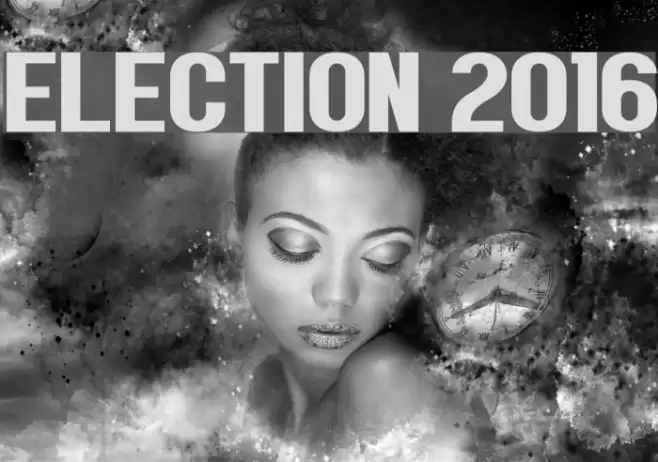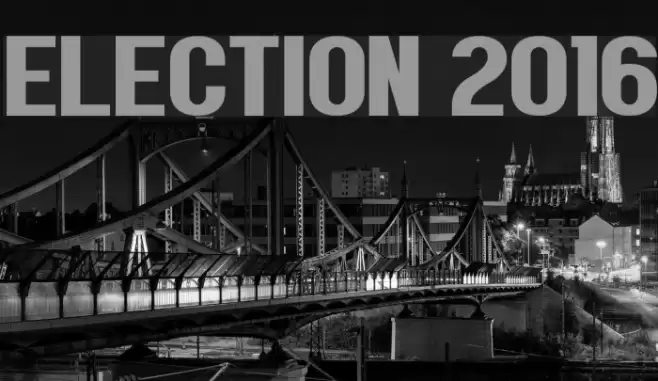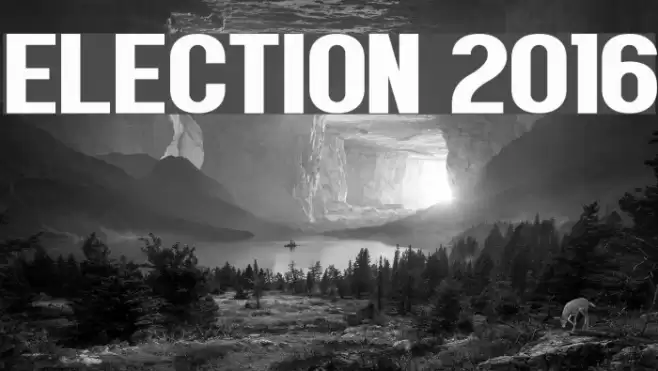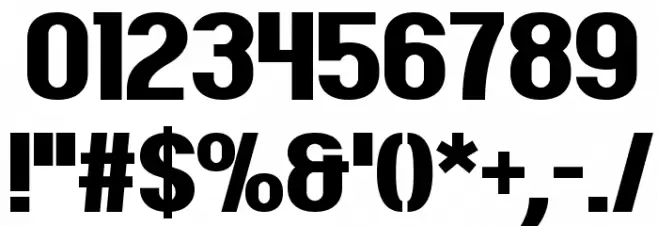
Election 2016 Font
Election 2016 Description
This font is a bold, sans-serif typeface characterized by its strong, impactful presence. The letters are uniformly thick, providing a sense of stability and strength. The uppercase and lowercase characters maintain a consistent weight, enhancing readability and visual balance. The numerals are equally bold, ensuring they stand out in any context. Special characters are designed with the same boldness, making them suitable for attention-grabbing headlines or statements. The overall design is modern and straightforward, with a focus on clarity and legibility.
A bold, sans-serif font with a strong, impactful presence from Uncategorized fonts.
- Proposed Projects: Ideal for headlines, posters, branding materials, and any design requiring a bold statement.